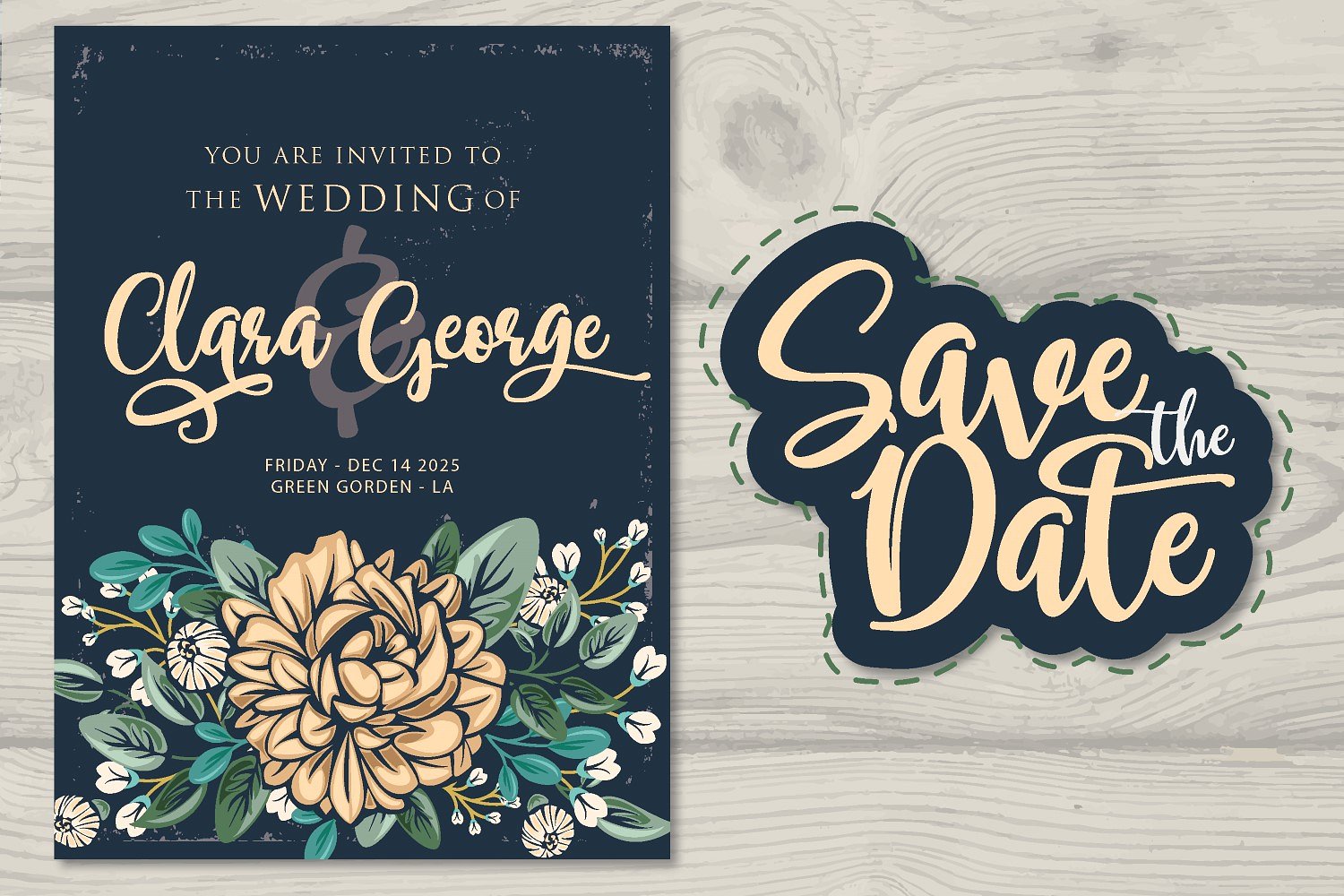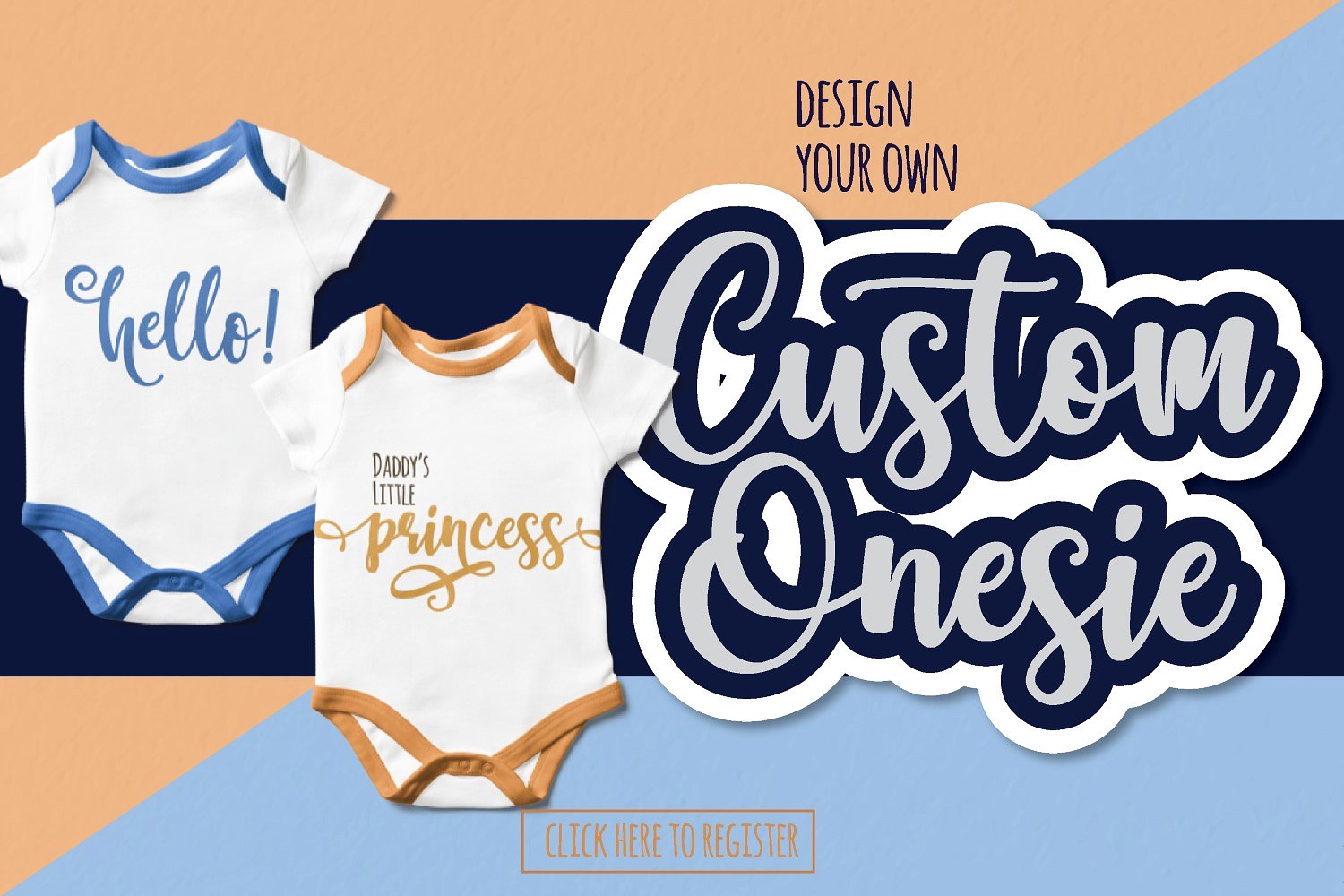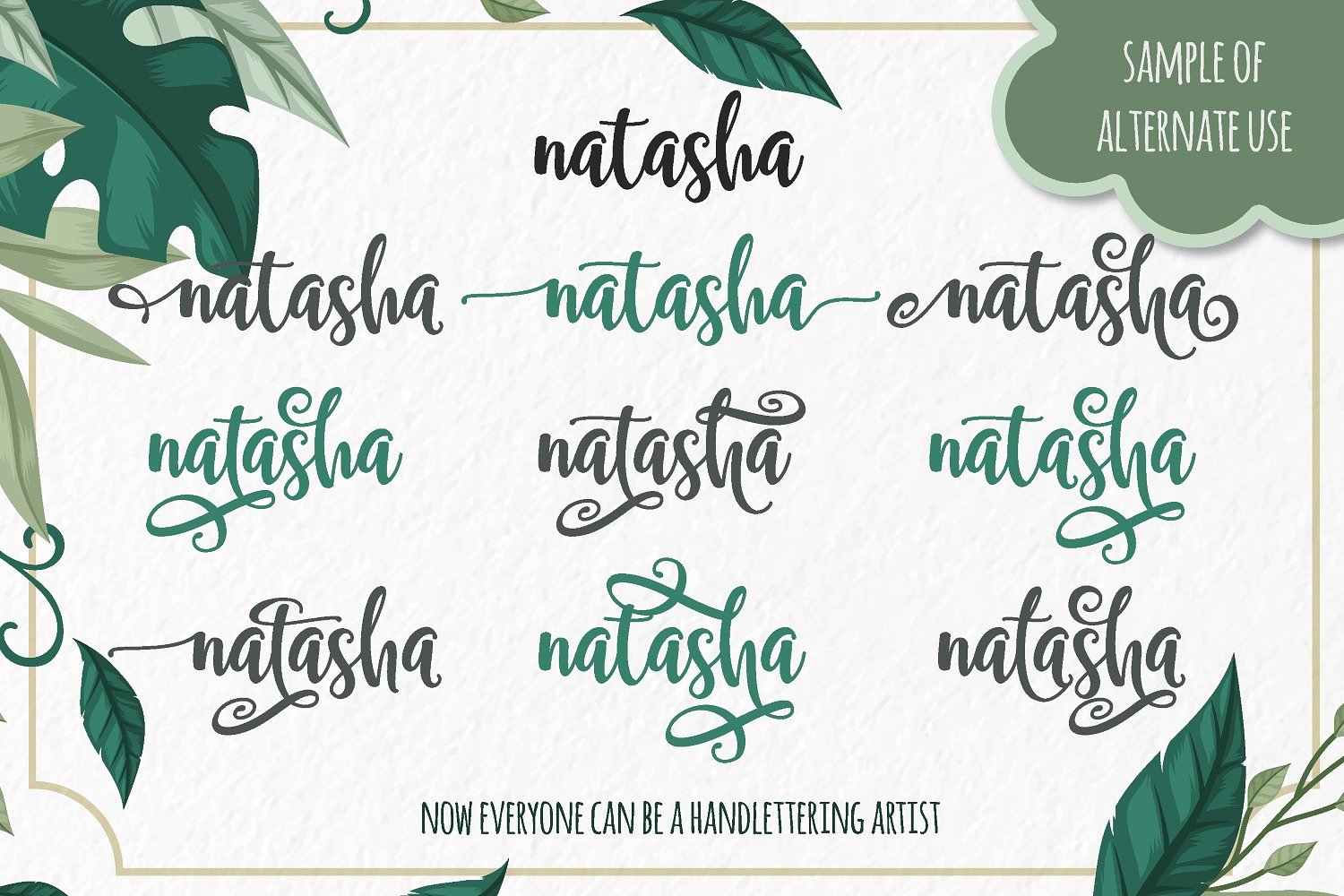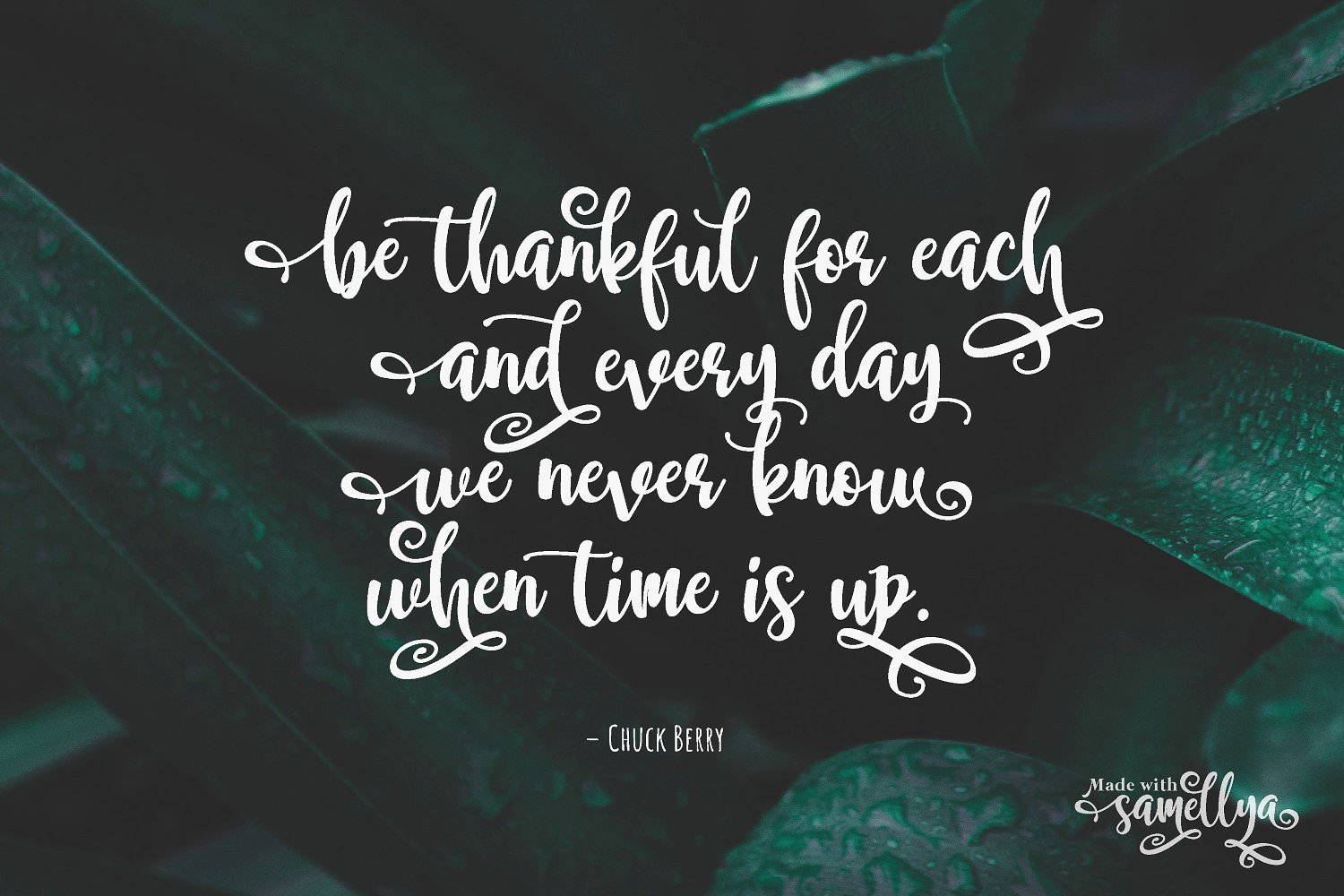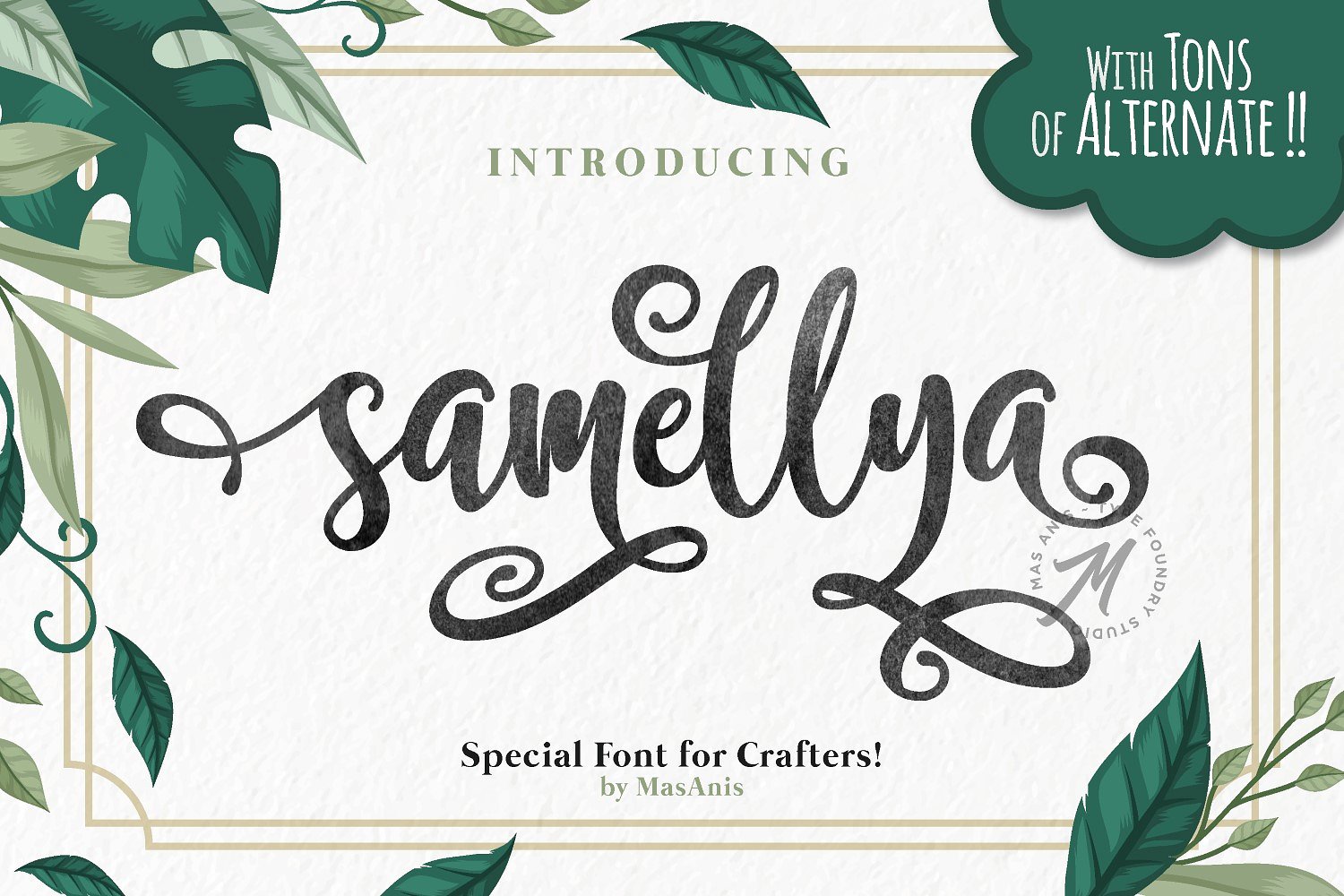
Samellya Script Font
Thank you for your interest in this font, it is a modern script font, you will enjoy using this font for your design project. Introducing Samellya Font. It is was designed by Mas Anis. Samellya is a font created specifically for crafters who want absolute design freedom, you can create anything you want with this decorative font, with a lot of swashes and alternates, this font will be great for any design project like merchandise, logo, invitation, quote, social media post, magazine cover, watermark, and many more!!